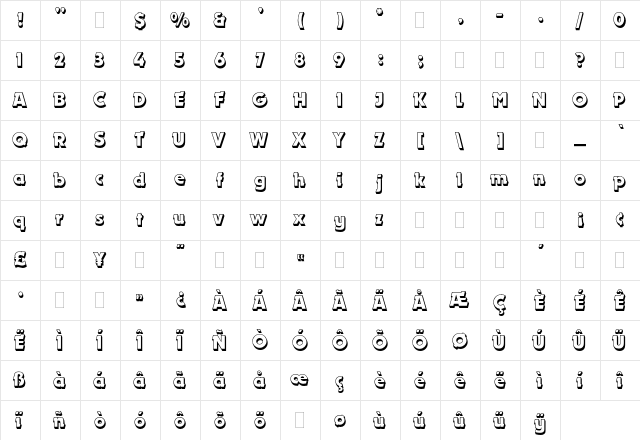
Dynamo Shadow Plain
Design Context for Dynamo Shadow Typeface
Dynamo Shadow brings ornamental detail and strong personality to headlines and identities, where visual impact matters more than quiet functionality.
Font Pairing: Pair with a clean neutral sans-serif for body copy to let Dynamo Shadow's character lead without overwhelming the composition.
Pro Tip: Use Dynamo Shadow exclusively at display sizes — it was designed to be seen, not read at length. Let a neutral companion handle body copy.